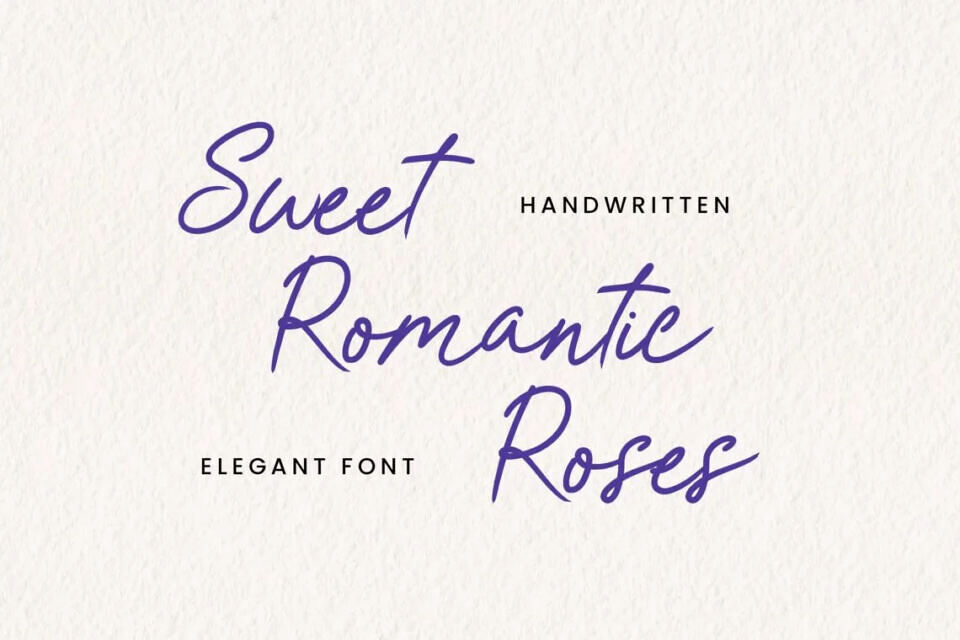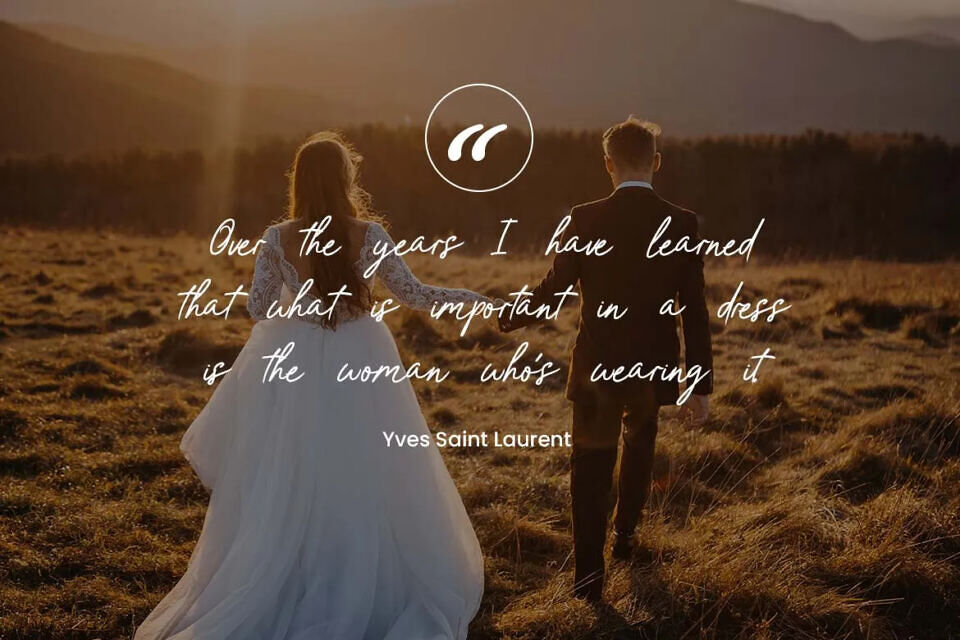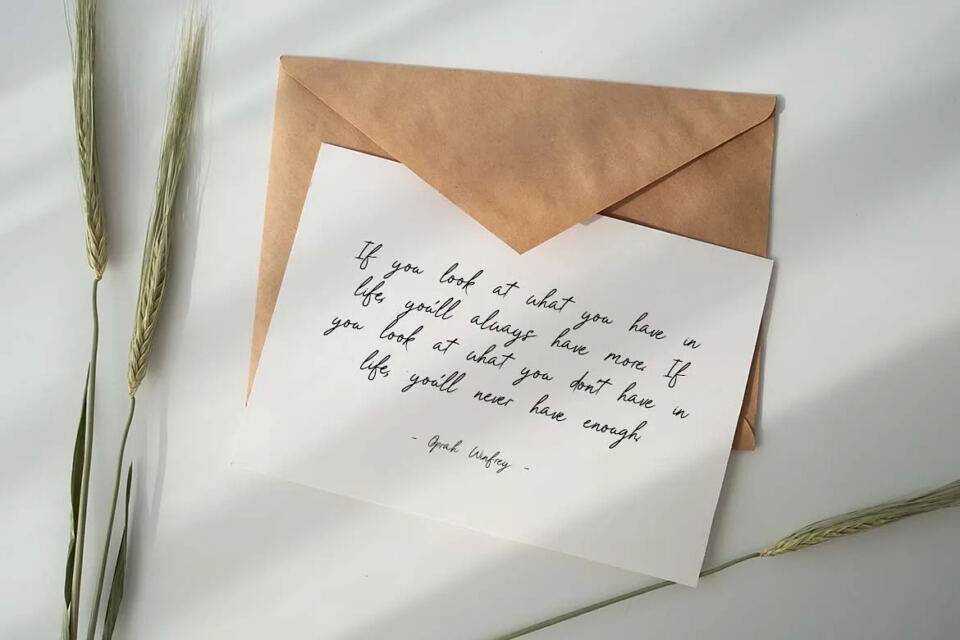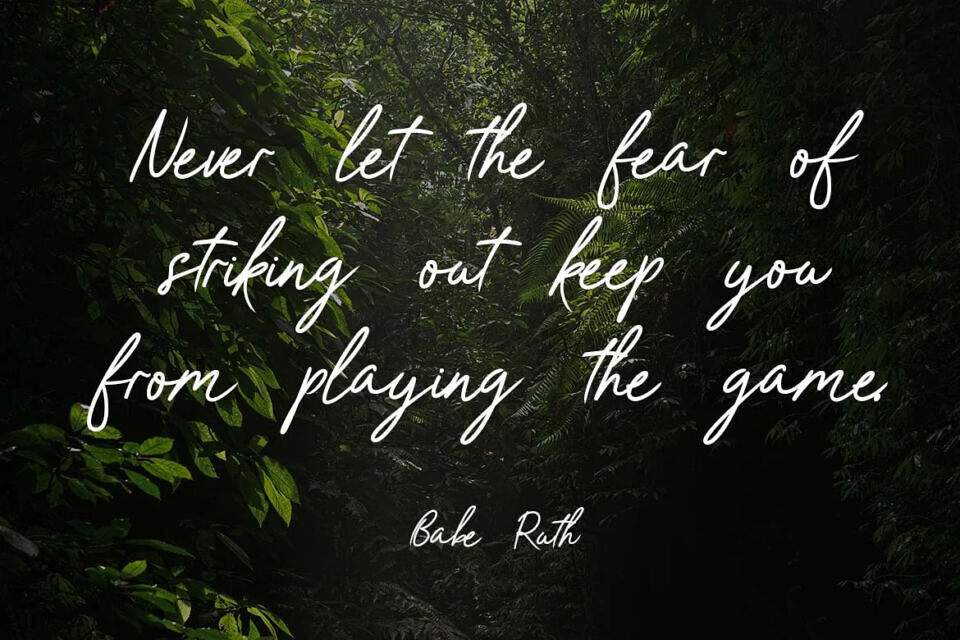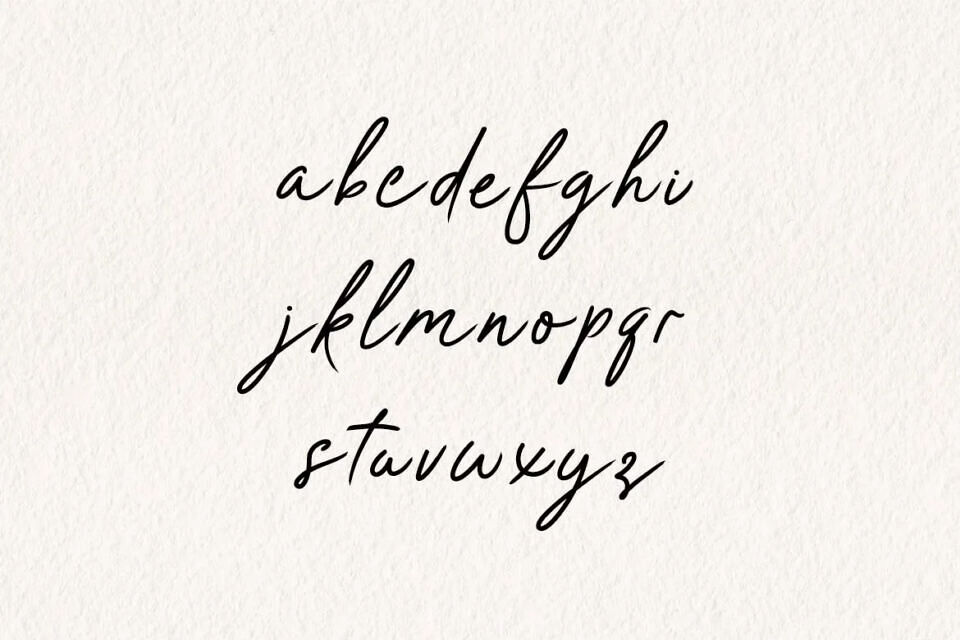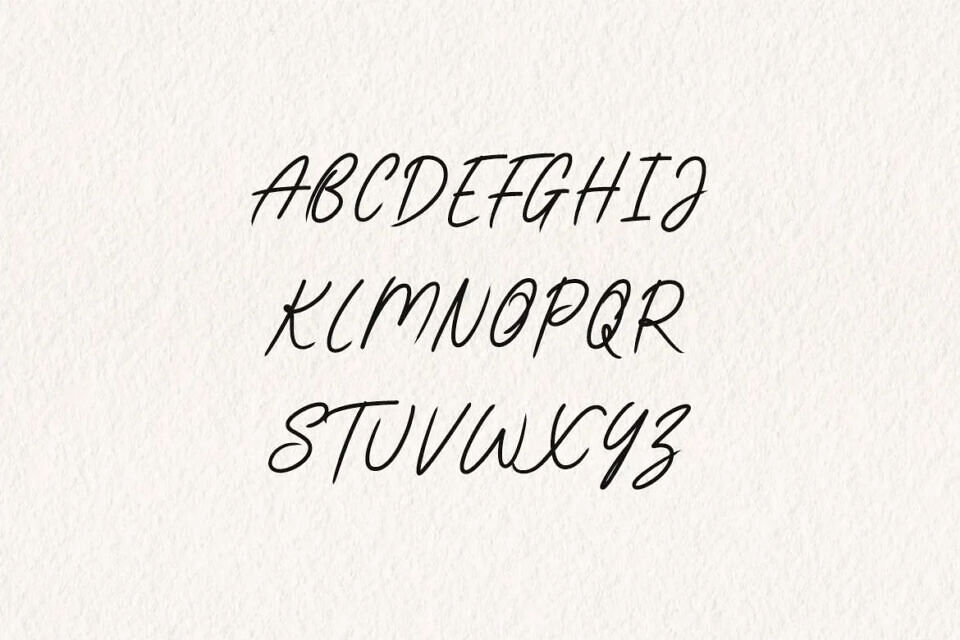
This elegant handwritten font exudes class and style. Perfect for various projects, it suits logos, wedding designs, quotes, and more. Its versatility also makes it ideal for fashion branding, editorial design, and website headers, conveying both masculine and feminine touches.